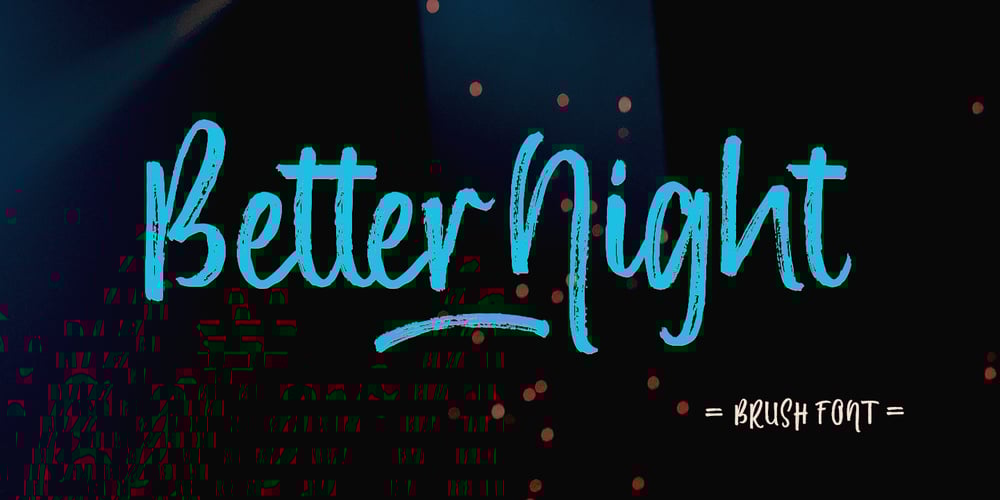
Better Night
Better Night font
Better Night Font Family was designed by Yur Lis and published by Stripes Studio. Better Night contains 2 styles and family package options. Hi, Introducing the latest styles Better Night with the kind of modern hand scratches, I hope you are interested in this font, if you want to use for your work this font can be used easily and simply because there are a lot of features in it to contain a complete set of letters lower and uppercase letters, assorted punctuation, numbers, and multilingual support. font also contains several ligatures and alternate style Stylistic.